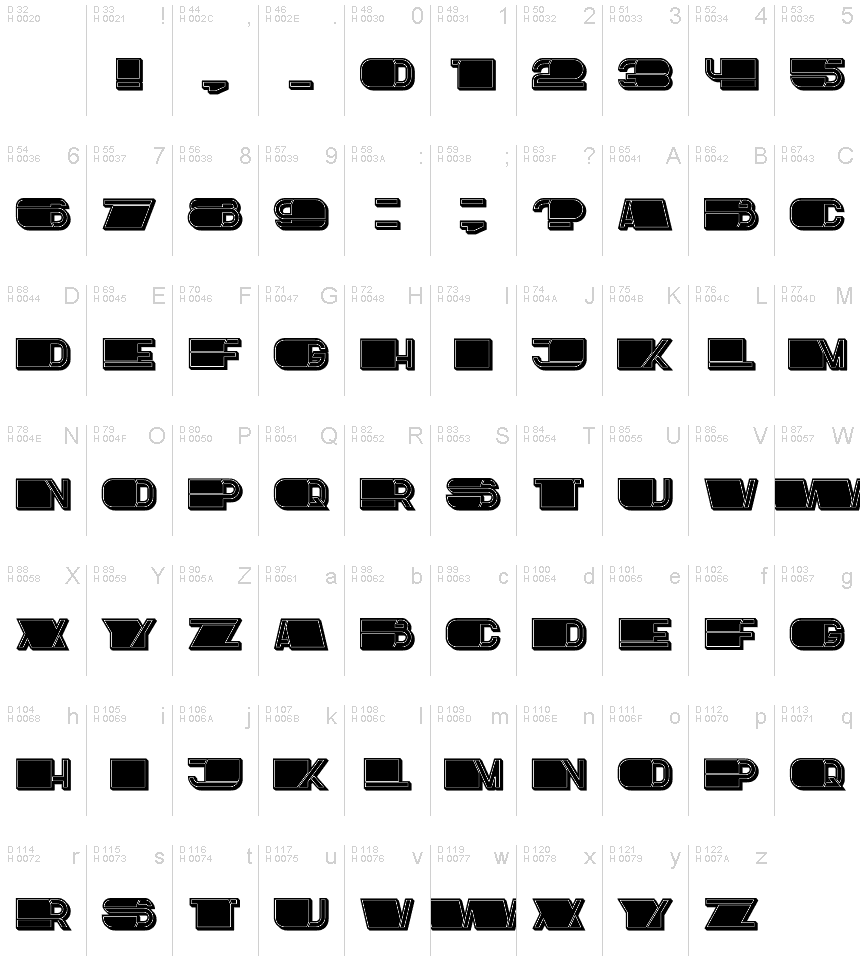
Crime Regular
Crime, designed by Vladimir Nikolic, is the ultimate display font for making a bold statement. With its ultra-bold weight and ultra-expanded width, this font will grab your audience's attention and leave a lasting impression. Its unique style makes it perfect for projects like movie posters, book covers, magazine headlines, and even street art. Use Crime to add a touch of edge to your designs and let it speak for itself. Its sharp lines and distinct curves make it perfect for any project that needs a touch of attitude. Get ready to turn heads with Crime – the ultimate ultra-bold display font!